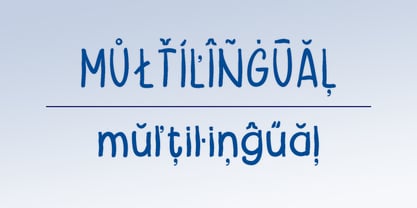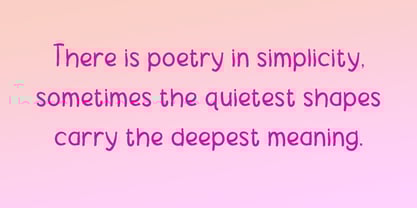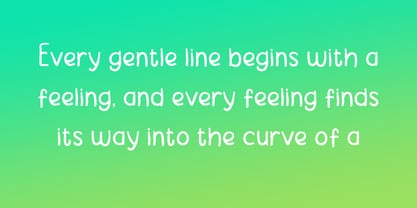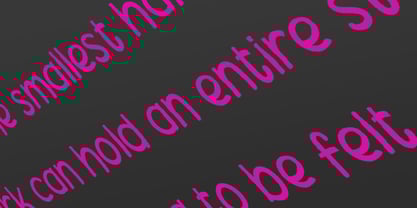
Bright Flow
by ZorkSlide
The Bright Flow Font Family was designed by Zuhayr Zunayra and published by ZorkSlide. Bright Flow contains 2 styles and family package options.
Designed with simplicity in mind, Bright Flow keeps each letter clean and easy to read while still preserving the charm of true handwriting. Whether you're crafting quotes, logos, invitations, branding, or social media posts, this font adds a soft, expressive character that feels honest and human. Bright Flow blends modern minimalism with heartfelt handwritten style — making every word feel alive, warm, and beautifully effortless.